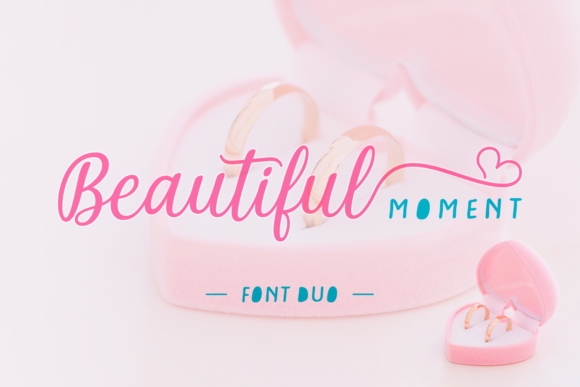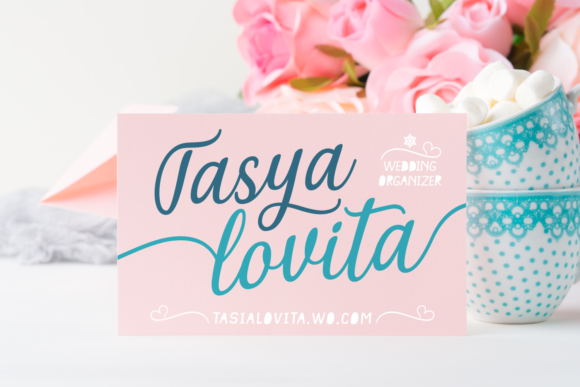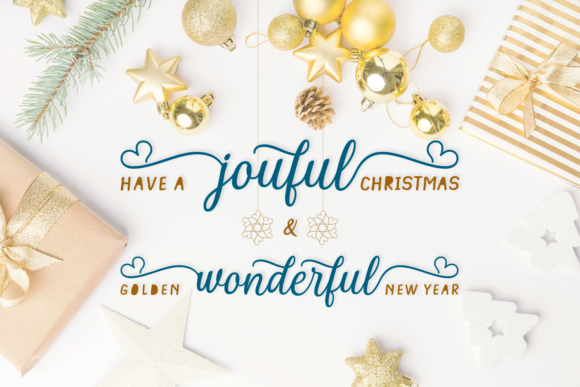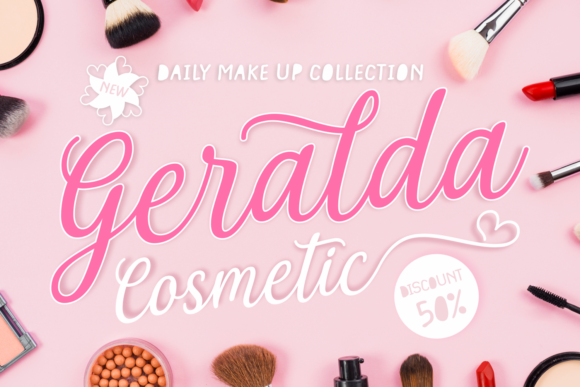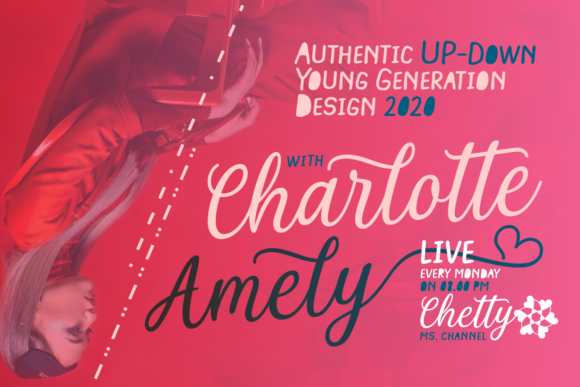
Beautiful Moment Font
About Beautiful Moment Font
Beautiful Moment is a friendly and modern font duo with a unique style. It is perfectly suited for a wide variety of projects!